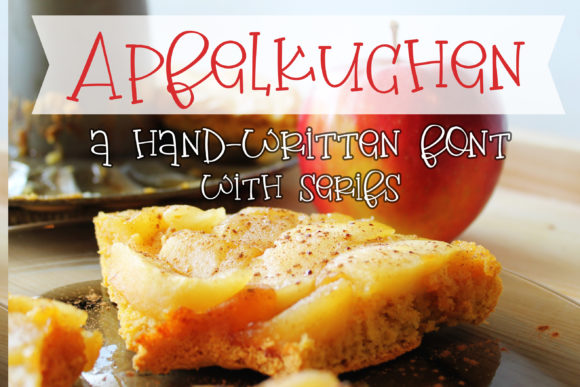
Immerse yourself in the whimsical world of ZP Apfelkuchen, a captivating script font that adds a touch of playful charm to your digital creations. Handcrafted with meticulous care by the talented Illustration Ink, Apfelkuchen is not just a font; it's an experience that brings your words to life.
Picture this: a handwritten note filled with heartfelt messages, a captivating logo that exudes warmth and personality, or an enchanting social media post that sparks joy and engagement. Apfelkuchen is the perfect companion for all your heartfelt endeavors. Its casual charm makes it wonderfully down-to-earth and readable, while its incredible versatility ensures it shines in any context.
Unleash your creativity and let Apfelkuchen work its magic. Create captivating posters that transport viewers to a whimsical wonderland, design enchanting invitations that spark curiosity and anticipation, or craft stunning website headers that leave a lasting impression. Apfelkuchen is the ultimate expression of individuality and style, allowing you to communicate your message with flair and originality.
With its ability to seamlessly blend into busy backgrounds or stand out as a bold headline, Apfelkuchen is the ultimate chameleon in the world of fonts. Its adaptability makes it the perfect choice for a wide range of projects, from personal to professional. Whether you're a seasoned designer, an aspiring artist, or simply someone looking to add a touch of magic to their digital creations, Apfelkuchen is the perfect font for you.
So, dive into the world of Apfelkuchen and let your imagination run wild. Its playful spirit and boundless potential will ignite your creativity and inspire you to create designs that captivate and enchant. Embrace the beauty of handwritten artistry and make a statement with every word you type.